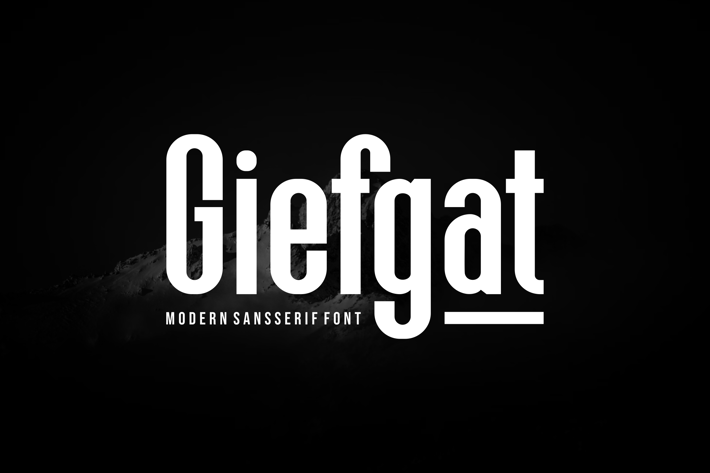
Giefgat - Modern Sansserif Font
Introducing our new product Giefgat Font - Modern Sansserif Font
Giefgat Font - Modern Sansserif Font is a bold and authentic display font. The font is suitable for any branding project like logo,
t-shirt printing, esport, and many more. outstanding in a wide range of contexts.